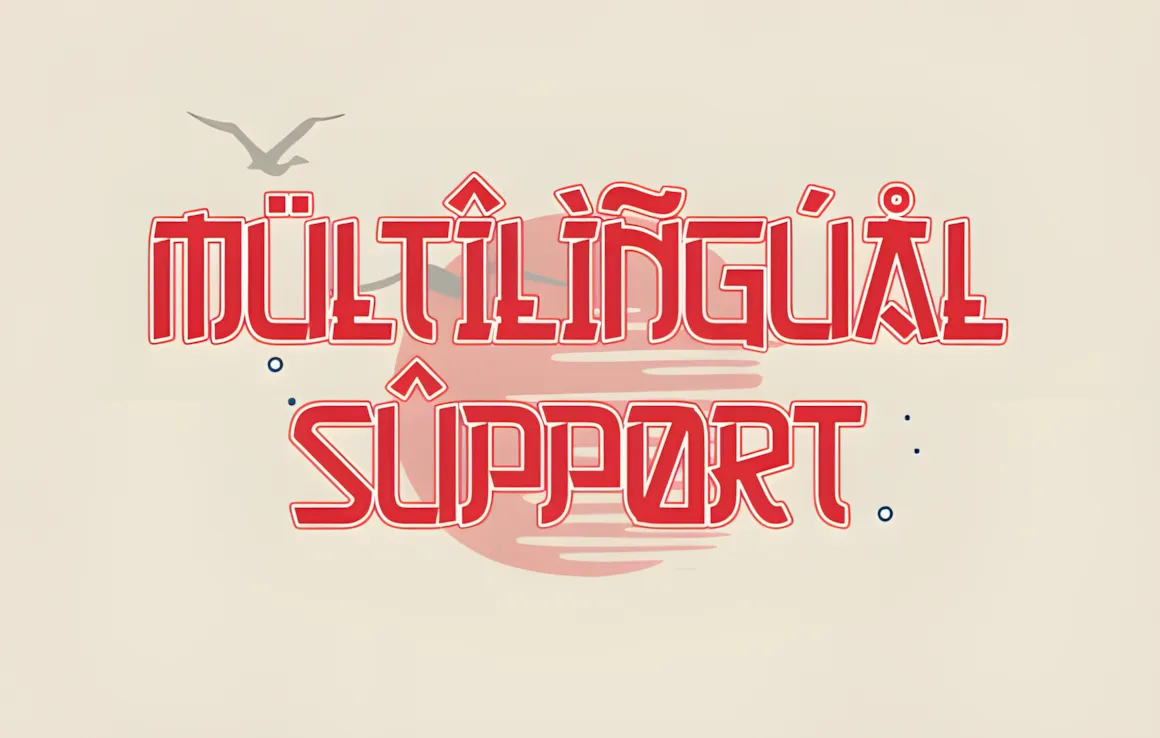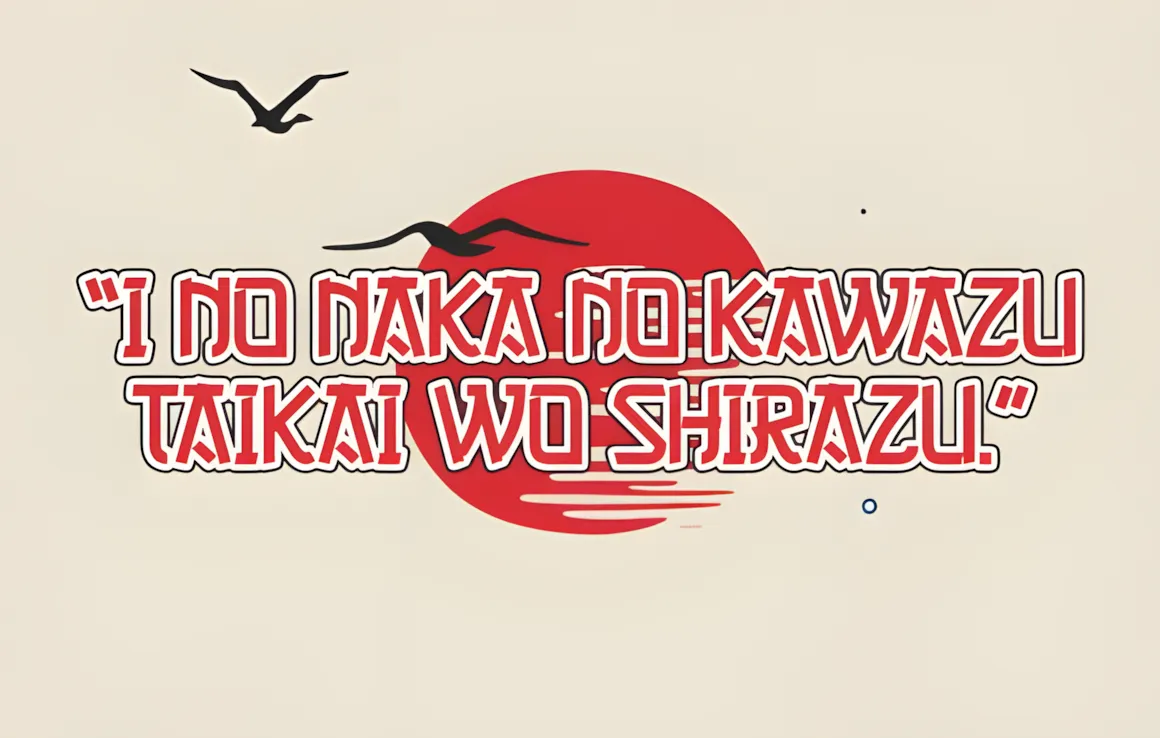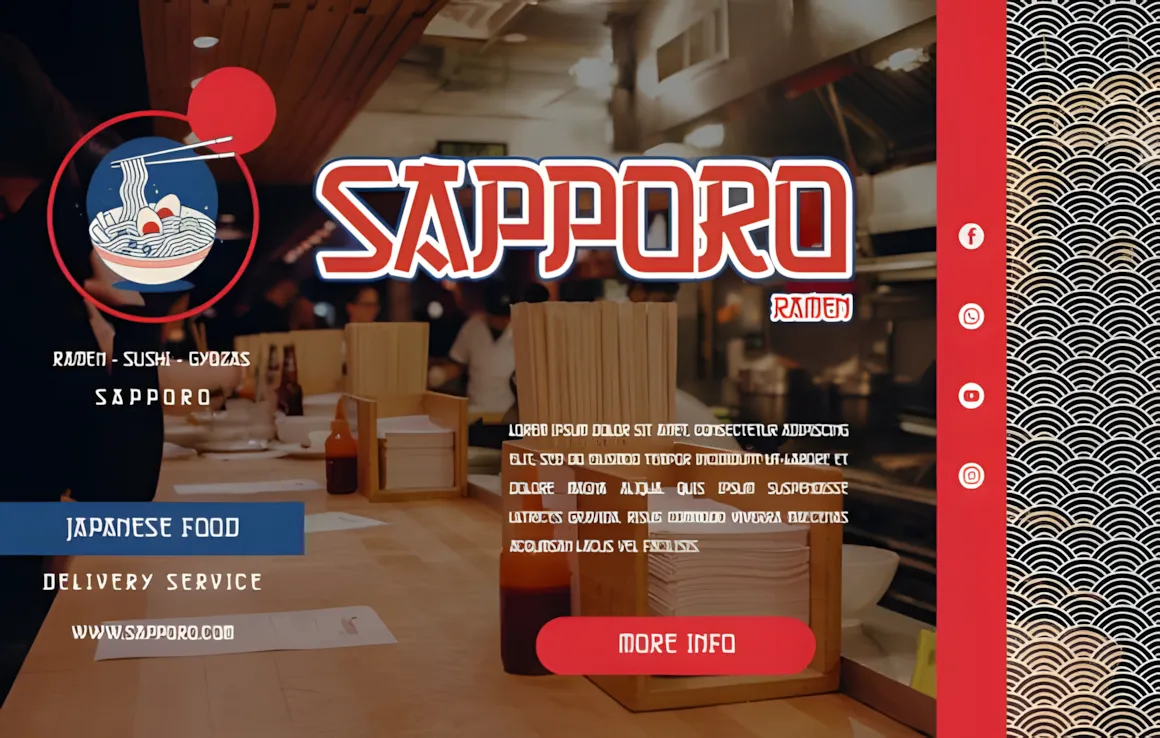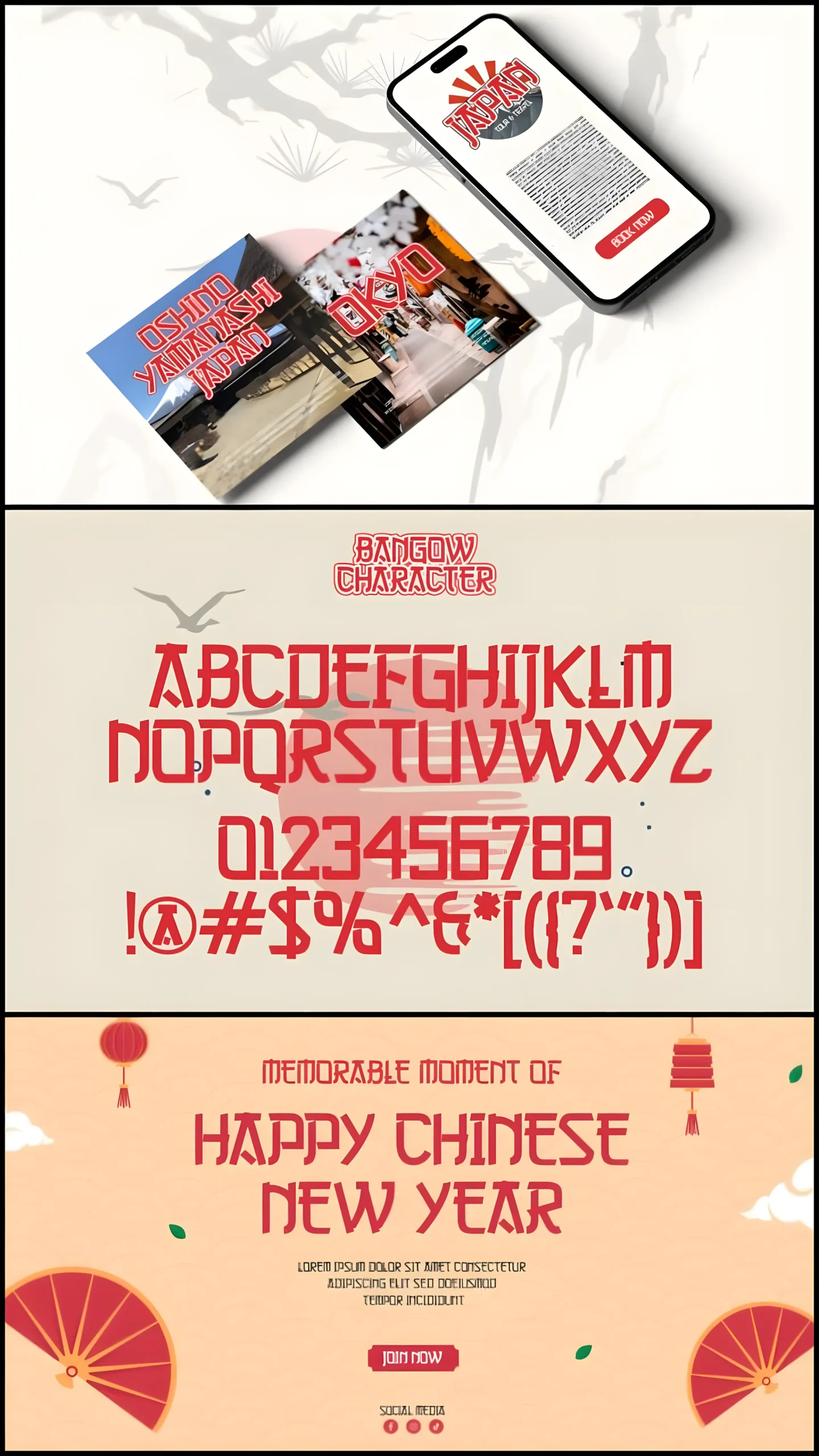
In modern design, typography often becomes the main visual element that defines the entire project. A strong decorative font can communicate energy, creativity, and character faster than images or colors. The Bangow Font is a bold decorative typeface created for designers who want their work to feel expressive, modern, and visually memorable.
Bangow Font stands out because of its confident shapes and dynamic style. It is designed for projects where typography is meant to lead the design rather than quietly support it. This makes the font especially appealing for branding, logos, posters, packaging, and creative marketing materials.
What Makes Bangow Font Different
Bangow Font is a decorative display typeface with a strong personality. Its letterforms are bold, expressive, and intentionally eye-catching. The design draws inspiration from modern display typography with subtle cultural and artistic influences, giving it a unique and contemporary feel.
Unlike minimal or neutral fonts, Bangow is meant to be noticed. It is not designed for long paragraphs or body text. Instead, it excels in titles, logos, headlines, and short phrases where visual impact matters most.
This approach makes Bangow Font ideal for creative projects that need to feel energetic, bold, and original.
Design Style and Visual Feel
The visual style of Bangow Font can be described as bold, modern, and expressive. The letterforms feature strong strokes, distinctive angles, and a rhythmic structure that gives the font movement and character.
Despite its decorative nature, the font remains readable when used correctly. It works best at medium to large sizes, where its details and shapes can be fully appreciated. When paired with simple layouts or solid backgrounds, Bangow Font becomes the centerpiece of the design.
This balance between creativity and clarity is what makes the font versatile for both digital and print projects.
Where Bangow Font Works Best
Branding and Logo Design
Bangow Font is particularly effective in branding and logo design. Brands that want to appear bold, creative, or unconventional can benefit from its strong visual identity. It works well for creative studios, entertainment brands, streetwear labels, restaurants, and businesses that want to stand out visually.
Using Bangow Font in a logo instantly adds personality and confidence, helping brands become more recognizable.
Posters, Flyers, and Promotional Design
For posters and promotional materials, typography needs to grab attention quickly. Bangow Font does exactly that. Its bold shapes and decorative style make it ideal for event posters, music flyers, promotional banners, and advertising visuals.
The font performs best when the surrounding design is kept clean, allowing the typography to carry the message without visual clutter.
Packaging, Menus, and Product Presentation
Bangow Font is also a strong choice for packaging and menu design. Its expressive style adds character to product labels, food packaging, menus, and retail displays.
This makes it especially suitable for brands that want to communicate creativity, originality, or a modern aesthetic through their packaging and printed materials.
Digital Content and Social Media
In digital environments, Bangow Font works well for website headers, landing pages, social media graphics, and video thumbnails. Its bold letterforms remain clear on screens and help content stand out in crowded digital spaces.
When used thoughtfully, the font enhances digital branding without overwhelming the overall design.
Why Designers Choose Bangow Font
Designers often choose Bangow Font because it offers a strong alternative to overused display fonts. Its distinctive style helps projects feel fresh and unique while still maintaining professional quality.
The font is flexible enough to be used across different design contexts, from branding and packaging to digital marketing and promotional graphics. This versatility makes it a practical addition to a designer’s font library.
Bangow Font is a bold decorative typeface designed for projects that need personality, energy, and visual impact. Its expressive style, modern character, and versatility make it a strong choice for branding, logos, posters, packaging, and digital content.
For designers looking for a decorative font that feels confident, creative, and distinctive, Bangow Font is a reliable option that delivers strong visual results.